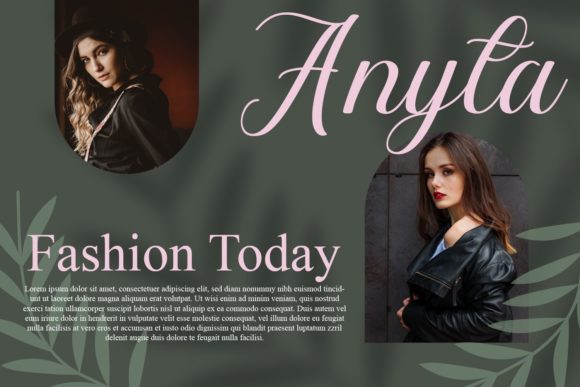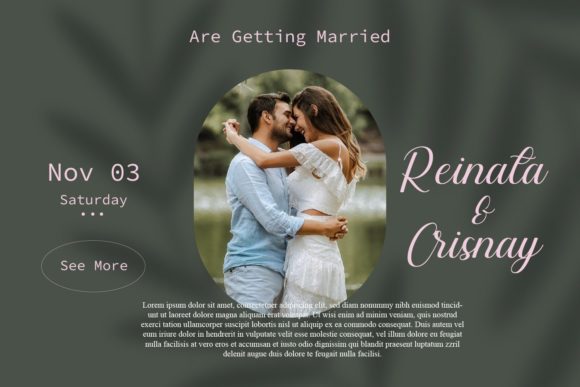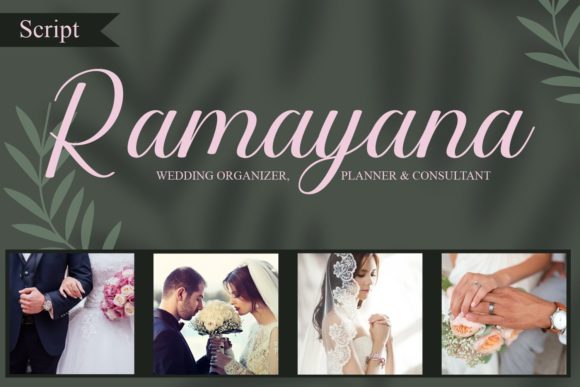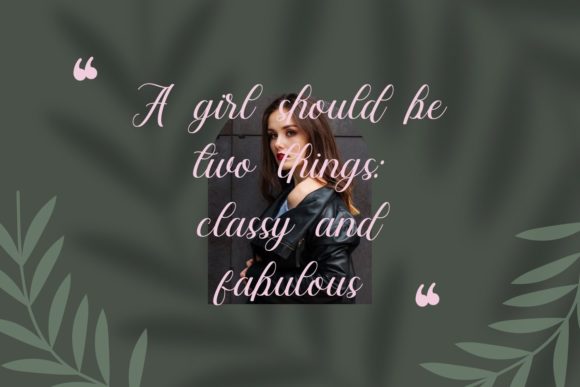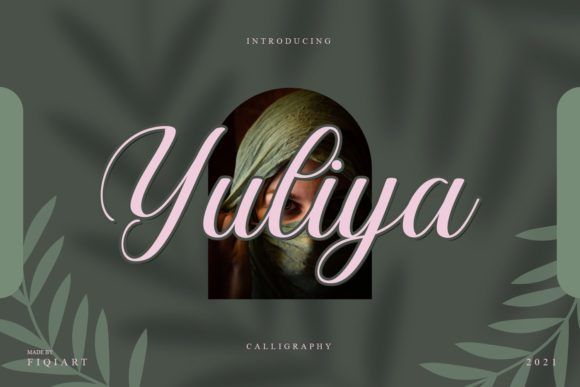
Introducing “Yuliya,” a delicate and elegant handwritten font that exudes a flowing and graceful style. With its ravishing beauty, this font is perfect for creating stunning wedding invitations, beautiful stationary art, eye-catching social media posts, and many other design projects.
Yuliya captures attention with its intricate and finely crafted letterforms. Each stroke is meticulously designed to create a sense of elegance and sophistication. The flowing nature of the font adds a touch of romance and charm, making it particularly well-suited for wedding-related designs.
Whether you’re creating invitations for a dreamy wedding celebration, designing personalized stationery with a touch of luxury, or crafting captivating social media posts that leave a lasting impression, Yuliya will elevate your designs to new heights.
The versatility of Yuliya extends beyond wedding-related projects. Its elegant and flowing style makes it a perfect choice for a wide range of applications. From branding materials to editorial designs, from feminine beauty products to inspirational quotes, this font brings an air of refinement and beauty to any design.
Yuliya’s delicate letterforms create a sense of timeless elegance that adds a touch of sophistication to your creations. Its flowing nature lends itself well to both digital and print media, allowing you to use it seamlessly across various platforms and materials.
Whether you’re a professional designer or someone looking to add a touch of elegance to their personal projects, Yuliya is a font that will captivate and inspire. Its beauty and versatility make it a valuable asset in your font collection.
In summary, Yuliya is a delicate, elegant, and flowing handwritten font that exudes a ravishing style. It is perfect for creating gorgeous wedding invitations, beautiful stationary art, eye-catching social media posts, and much more. With its intricate letterforms and timeless elegance, Yuliya adds a touch of sophistication and refinement to any design project.